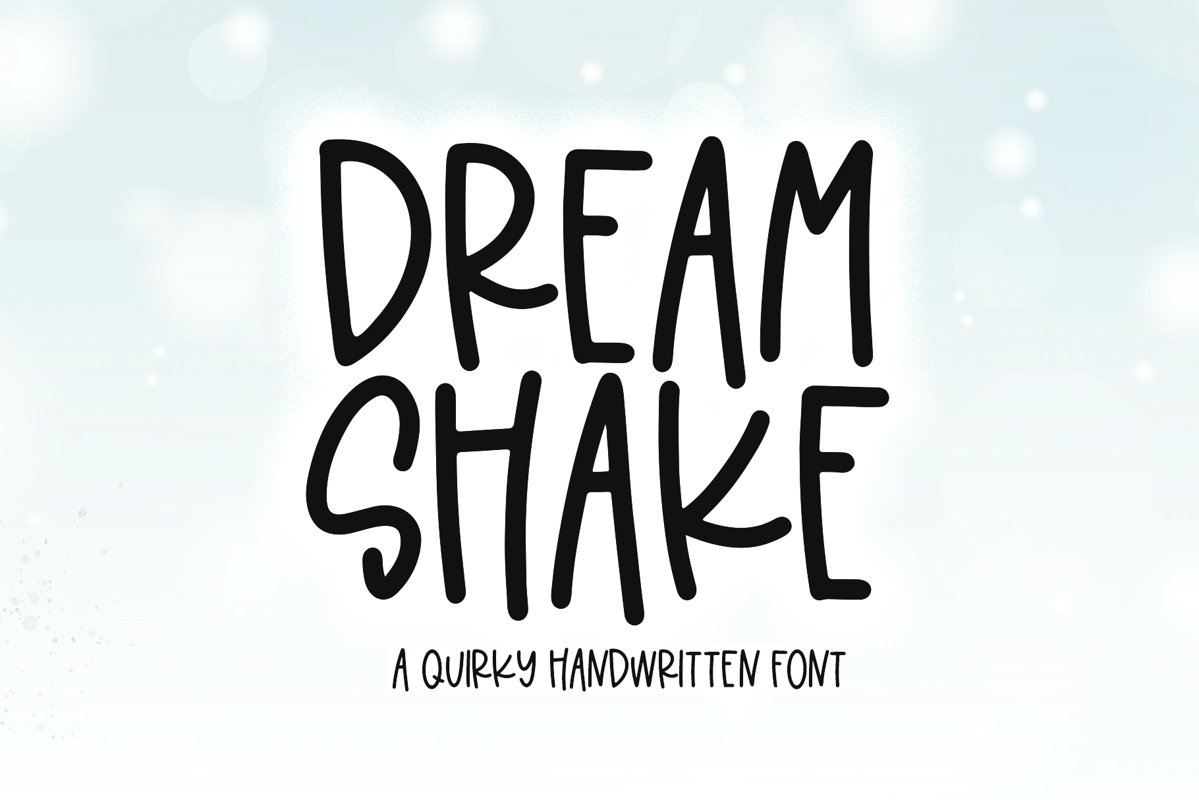
Dream Shake is a fun and quirky handwritten font!
This font is perfect for quotes, shirt designs, websites, branding, children's designs, svg designs, blogs, logos, invitations and more!